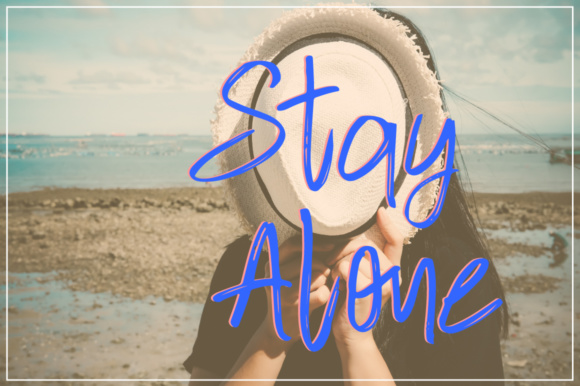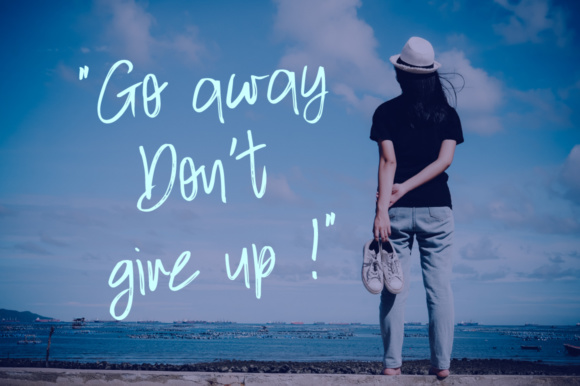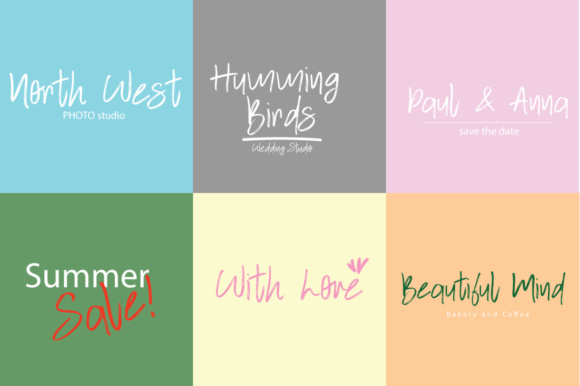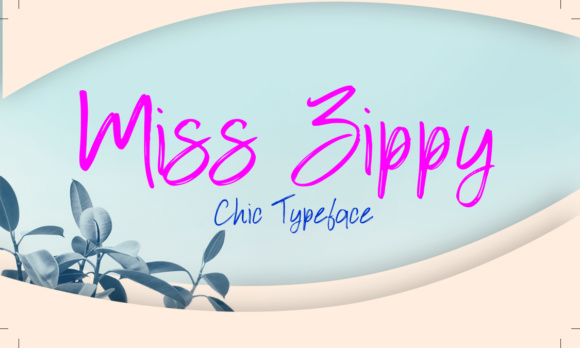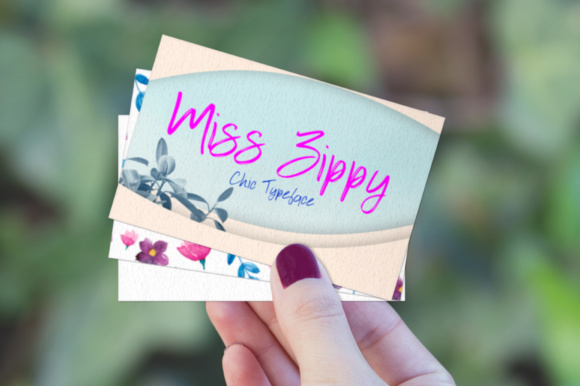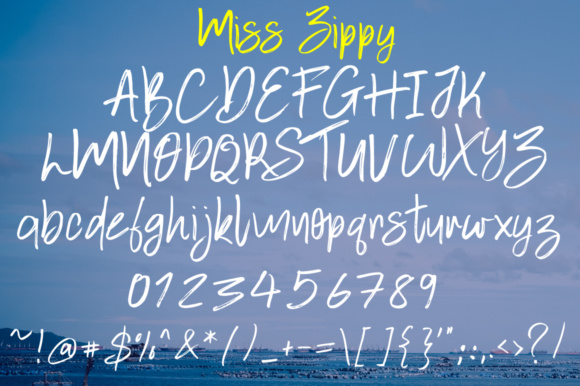
Introduction to Miss Zippy Font Font
Fonts play a crucial role in design, and the Miss Zippy Font font is a typeface that brings both character and versatility to any project. Whether you’re working on a branding project, a website, or a print design, the Miss Zippy Font font offers a unique style that can elevate your work.
The Miss Zippy is an amazing handwritten font.
Itβs perfect for wedding invitations, blogs, logos, and much more .
Key Features of Miss Zippy Font Font
Why Choose Miss Zippy Font Font?
The Miss Zippy Font font is more than just a typeface β it’s a design tool that helps you communicate your message with style and clarity. Its unique character set and versatile design make it suitable for a wide range of applications, from elegant invitations to bold headlines.
With its carefully crafted letterforms and balanced proportions, the Miss Zippy Font font ensures readability and visual appeal across all mediums.
What makes Miss Zippy Font font special?
The Miss Zippy Font font stands out with its unique design, exceptional readability, and versatility across various design applications.